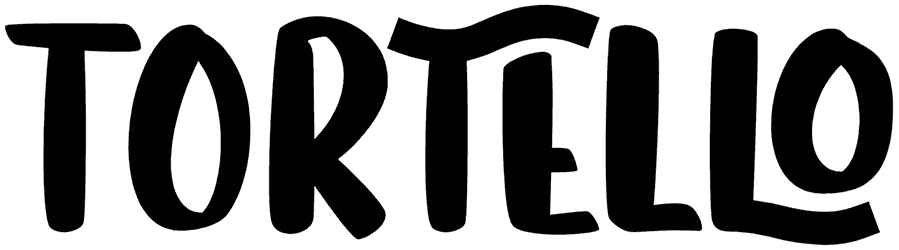
Rustic Peach Font
When it comes to baby and children-centered branding creations, the Rustic Peach font exhibition comes across as a creative, smooth event. The silky and cute lettering of this handwritten font, while leaving out lowercase letters, works well for other aims like sweets and the food industry, toy packaging, and other fancy displays due to its signature style and curly edges.
Designed by: Jimtype Studio